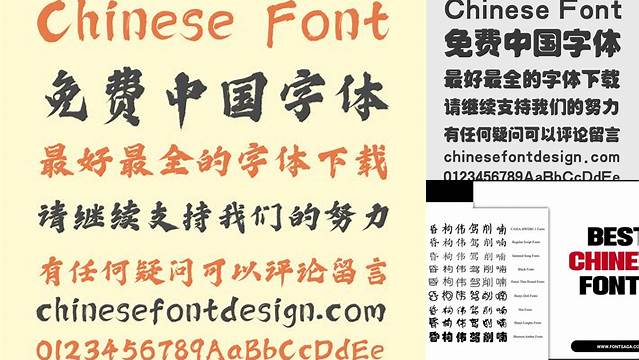
Download Free Chinese Fonts: Best Options & Usage
Hey guys! Ever been fascinated by the elegance and artistry of Chinese characters? Or maybe you're working on a project that needs that authentic Chinese flair? Well, you've come to the right place! This article is all about chinese fonts, where to find them, how to use them, and everything in between. We’re diving deep into the world of chinese fonts, exploring different styles, and even showing you how to download free chinese fonts safely and easily. So, grab a cup of tea and let’s get started!
1. Understanding the Basics of Chinese Fonts
Let's kick things off by understanding what makes a Chinese font unique. Unlike Latin alphabets, Chinese characters are logograms, meaning each character represents a word or morpheme. This means there are thousands of characters, leading to a vast and diverse range of font styles. When we talk about chinese fonts, we're not just talking about one typeface; we're talking about a whole universe of visual expressions. From traditional scripts to modern interpretations, each font carries its own cultural and artistic weight. Understanding this diversity is the first step in choosing the perfect font for your project. Think about the feeling you want to evoke – is it historical, contemporary, elegant, or playful? The right font can make all the difference, adding authenticity and visual appeal. Choosing the right chinese fonts is very important to convey the right message and impact of your design.
Paragraph optimization: Understanding the core of Chinese fonts reveals their unique complexity. Unlike alphabetic systems, these fonts use logograms, where each character symbolizes a word or morpheme. The sheer volume of characters creates a rich array of styles, each carrying cultural and artistic significance. Exploring these chinese fonts means diving into a universe of visual expressions, from ancient scripts to contemporary designs. Selecting the perfect font involves considering the desired aesthetic – historical, modern, elegant, or playful. The right chinese fonts enhance authenticity and visual appeal, making font choice critical for effective communication.
3. Popular Styles of Chinese Fonts
The world of chinese fonts is incredibly diverse, with styles ranging from elegant and traditional to modern and playful. Let's explore some of the most popular styles you'll encounter: Songti (宋体), a classic serif style known for its readability; Kaiti (楷体), a semi-cursive style often used in calligraphy; Heiti (黑体), a bold sans-serif style perfect for headings; and Lishu (隶书), an ancient clerical script with a distinctive calligraphic feel. Each style has its own unique character and is suited for different purposes. Understanding these styles will help you choose the perfect chinese font for your project, whether it's a formal document, a creative design, or a website. Knowing the nuances of each style will elevate your work and ensure it resonates with your audience. For example, Songti is often used in books and newspapers due to its legibility, while Kaiti is favored for artistic and decorative purposes.
Paragraph optimization: The realm of chinese fonts showcases incredible diversity, spanning elegant traditional styles to playful modern designs. Among the popular styles are Songti (宋体), a readable classic serif; Kaiti (楷体), a semi-cursive calligraphic style; Heiti (黑体), a bold sans-serif ideal for headings; and Lishu (隶书), an ancient clerical script with calligraphic flair. Each style possesses a distinct character suitable for various applications. Grasping these differences ensures the perfect chinese font choice for any project, whether formal documents, creative designs, or websites. Understanding the subtleties of each style enhances your work and connects with your audience. For instance, Songti's legibility makes it perfect for books, while Kaiti suits artistic endeavors.
4. Using Chinese Fonts in Design Projects
Integrating chinese fonts into your design projects can add a touch of authenticity and sophistication. However, it's essential to use them thoughtfully. Consider the context of your project and choose a font that complements the overall design. For instance, a modern website might benefit from a clean, sans-serif font, while a traditional poster might call for a more calligraphic style. Think about the message you want to convey and how the font can help you achieve that. It’s also important to ensure the font is legible and scales well across different sizes and devices. Proper kerning and spacing are crucial for readability, especially with the intricate strokes of Chinese characters. By carefully considering these factors, you can effectively incorporate chinese fonts into your designs and create visually stunning results. Experiment with different combinations and see what works best for your specific needs.
Paragraph optimization: Incorporating chinese fonts into design projects adds sophistication and authenticity, but requires careful consideration. Select fonts that complement the project's context and overall design aesthetic. Modern websites might benefit from clean sans-serif fonts, while traditional posters may suit calligraphic styles. The font should align with the intended message and scale well across various sizes and devices. Proper kerning and spacing are vital for readability, given the complexity of Chinese characters. Thoughtful application of chinese fonts leads to visually striking designs. Experimentation with different combinations yields optimal results tailored to specific needs.
5. Chinese Fonts for Calligraphy and Traditional Arts
Calligraphy is a deeply revered art form in Chinese culture, and the choice of font plays a crucial role in the artistic expression. Certain chinese fonts are particularly well-suited for calligraphy, such as Kaiti, Lishu, and Xingshu (行书), a semi-cursive script that blends fluidity and structure. These fonts capture the essence of traditional Chinese aesthetics and are often used in paintings, scrolls, and other artistic creations. If you're looking to create authentic-looking calligraphy, it's essential to choose a font that reflects the style and period you're aiming for. Researching the history and usage of different fonts can help you make an informed decision and achieve the desired artistic effect. The beauty of calligraphy lies in the subtle nuances of each stroke, and the right font can bring your artwork to life. Consider exploring brush stroke variations and ink densities to further enhance the traditional feel of your calligraphy pieces.